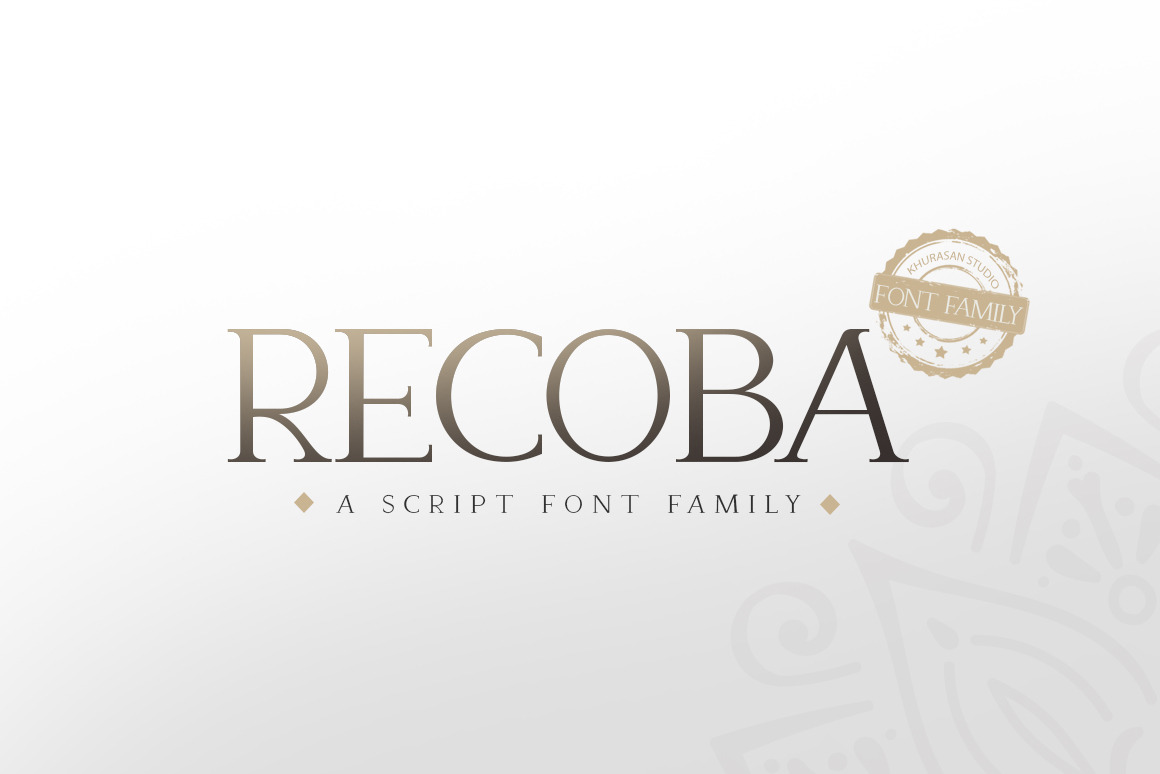
Recoba Font Family
The Recoba font is elegant and charming serif typeface both modern and gorgeous. Recoba has 3 different styles. Recoba font it’s perfect for , poster, logo, magazine, cover, banner, tshirt and headers, or even large-scale artwork.